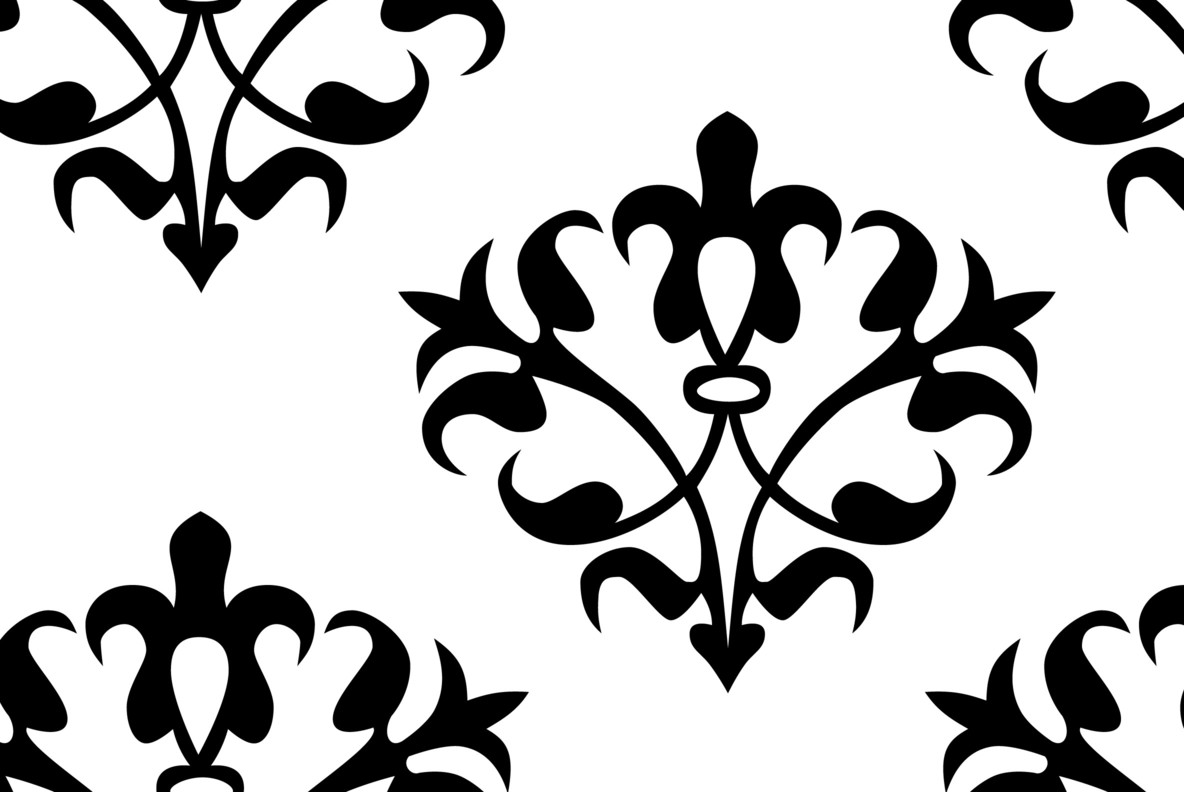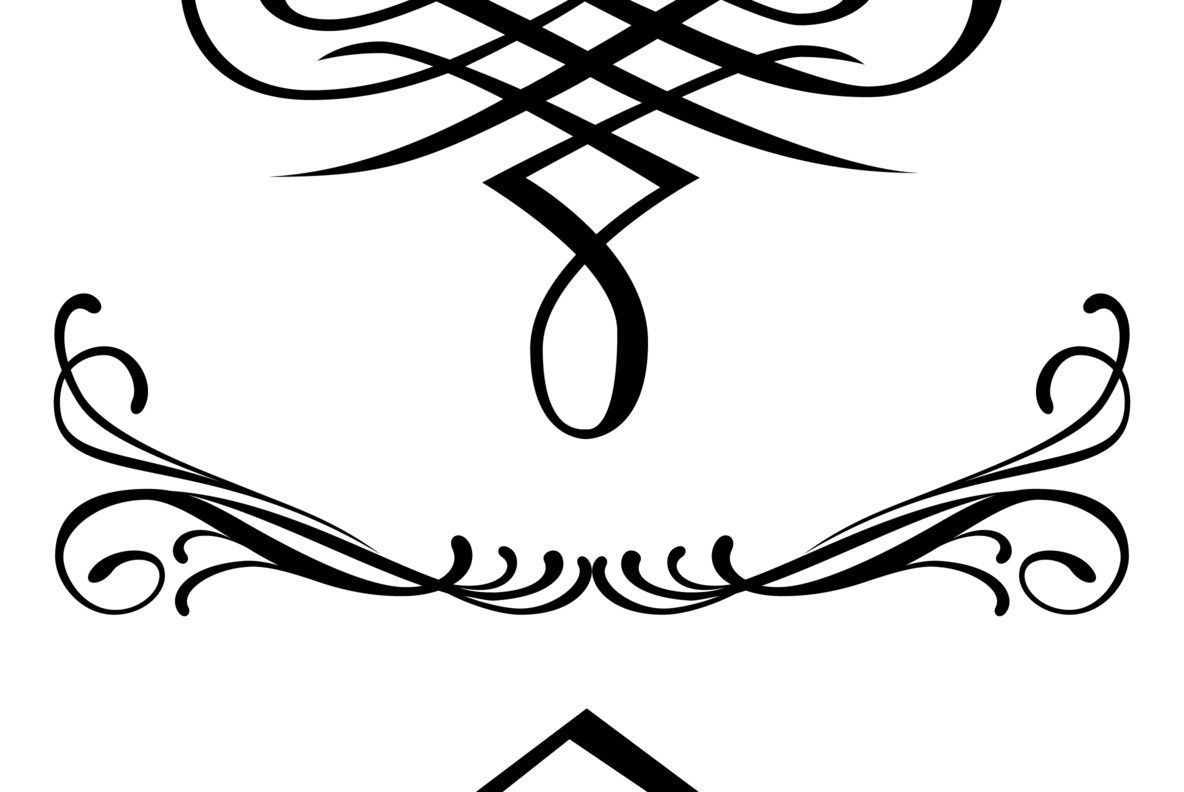
Fleurons Font
"Fleurons" are embellishments and here is my sixth and so far most beautiful round. I again found some nice old ones and made them completely new.